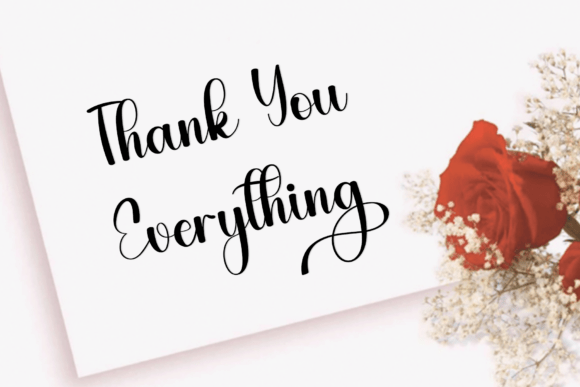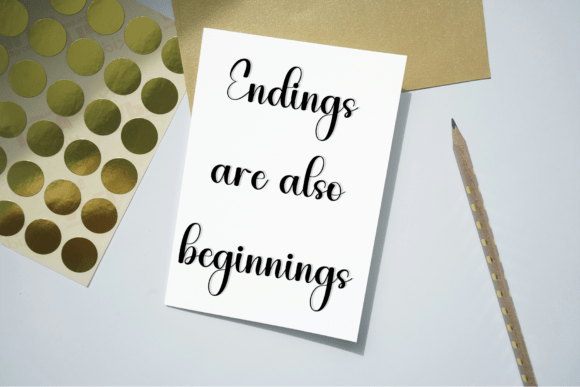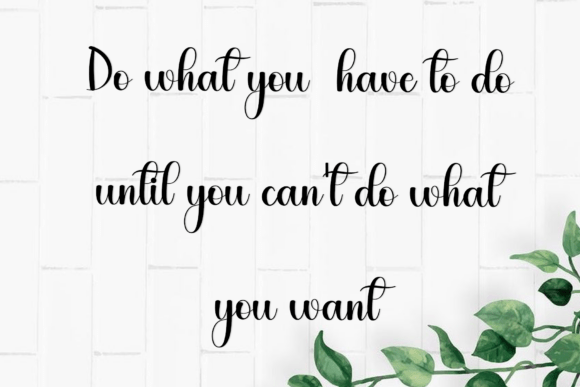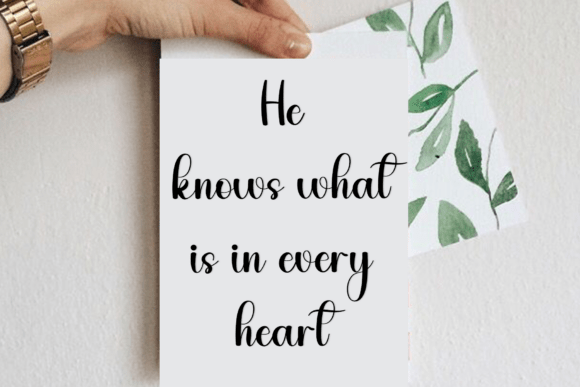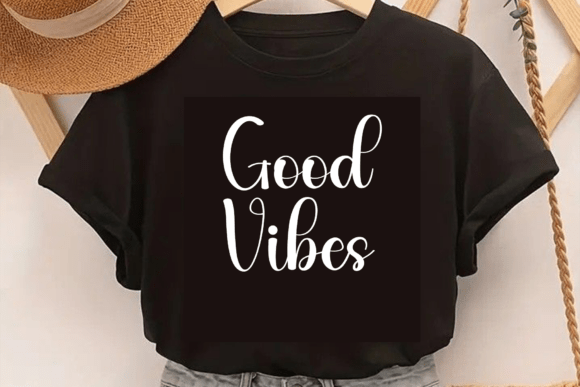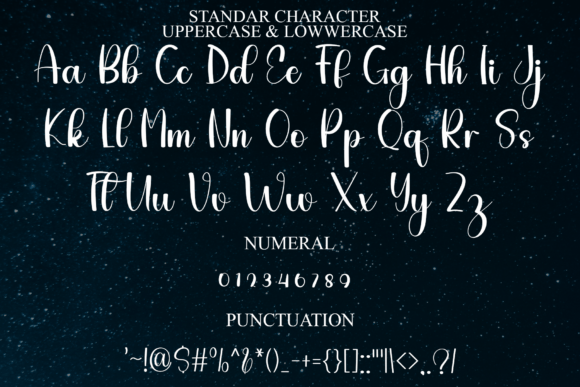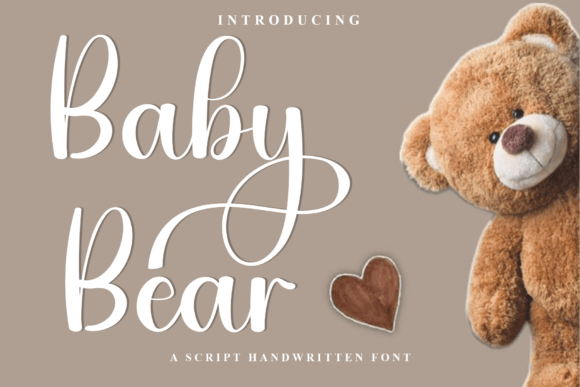
Baby Bear Font: A Festive and Merry Typeface for Holiday Designs
The holiday season is upon us, and what better way to get into the spirit than with a font that’s as festive and merry as Baby Bear Font? This enchanting typeface is designed to capture the magic of the holiday season, with its decorative elements and whimsical flair. Whether you’re a designer, crafter, or simply someone who loves the holidays, Baby Bear Font is the perfect addition to your typography collection.
A Festive and Whimsical Typeface
Baby Bear Font is a beautifully crafted typeface that’s perfect for adding a touch of enchantment to your designs. Its decorative elements and whimsical flair make it an ideal choice for holiday-themed projects, such as greeting cards, gift tags, and festive posters. The font’s playful and cheerful design is sure to bring a smile to anyone’s face, making it perfect for projects that require a lighthearted and nostalgic touch.
Perfect for Holiday Designs
Baby Bear Font is specifically designed with the holiday season in mind. Its festive and merry design makes it perfect for a wide range of holiday-themed projects, including:
• Greeting cards: Add a personal touch to your holiday greeting cards with Baby Bear Font’s whimsical and decorative design.
• Gift tags: Make your gifts stand out with beautifully designed gift tags featuring Baby Bear Font.
• Holiday posters: Create eye-catching posters for your holiday events or promotions with Baby Bear Font’s festive and cheerful design.
• Craft projects: Add a touch of magic to your craft projects, such as scrapbooking, journaling, and paper crafting, with Baby Bear Font.
Why Choose Baby Bear Font?
So why choose Baby Bear Font for your holiday designs? Here are just a few reasons:
• Unique and festive design: Baby Bear Font’s decorative elements and whimsical flair make it a one-of-a-kind typeface that’s sure to stand out.
• Versatile: Baby Bear Font is perfect for a wide range of holiday-themed projects, from greeting cards to holiday posters.
• Nostalgic and cheerful: The font’s playful design is sure to bring a smile to anyone’s face.